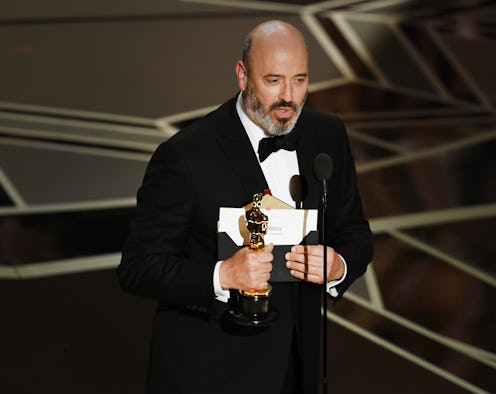
The Oscars Changed The Font Size On The Envelopes Because Of 2017 & Twitter Is Loving It
The 2017 Oscars will only be remembered for one thing — the Moonlight/La La Land envelope snafu, in which Faye Dunaway and Warren Beatty presented the right award to the wrong movie. Oops! To combat this humiliation, the Academy has taken a very big step toward change. They have put a huge font size on the 2018 Oscars envelopes. Of course, fans watching the show took notice.
For those of you who had already fallen asleep before the 2017 show reached its end, La La Land was named as the Best Picture when really it was Moonlight that had been written on the envelope. Dunaway and Beatty blamed the envelopes, saying that they were hard to read because they had accidentally read off the envelope for Best Actress instead. It was exhausting. In any case, it's 2018, and the Oscars have made some big changes — so big that you can probably see them from space. The Oscars envelopes now have the categories written on them in a very large, very bold font that takes up nearly the entire side of the envelope. This must be so that it cannot be possible for producers or presenters or anyone else within 1500 yards of the envelope to grab the incorrect one. One year you name the wrong movie, fine, but two? Two is just a shame.
Because you really can't miss these envelopes, Twitter took notice.
There Were Plenty Of Three Billboards Jokes
Topical humor, guys.
Viewers Saw Right Through The Reasoning
We see you, Oscars.
Others Knew It Was A Sign Of Their Own Eyesight Failing
Hey — everyone gets old at some point. You may as well embrace it.
At least the Oscars can joke about the mixup now. Last year, the auditors of PriceWaterhouseCoopers allegedly handed Dunaway and Beatty the wrong envelope, and that is damn near impossible this year. Jimmy Kimmel, who hosted the Oscars in 2017, said on Good Morning America, "The biggest safeguard there is that this company PricewaterhouseCoopers will literally have to go out of business if they do it a second time. So I think they'll have to be very, very careful."
Interestingly enough, the biggest mistaken reveal in modern awards show history wasn't in 2017 — it took place at the Academy Awards back in 1940. According to the Washington Post, the producers of the show used to issue winner's lists to the local press so that the journalists could get ahead on filing their stories about the awards and who won them. But in 1940, as the winners were scooping up trophies, no one was really acting surprised. Why? Because the Los Angeles Times ignored the 11:00 p.m. embargo imposed by the Academy, and they opted to announce the winners in their evening edition, ruining the whole show of having a ceremony. What's the point of watching the ceremony or even sitting there if the winners were already named?
From 1941 on, no information was given to the press, and the sealed envelope system was adopted as we know it today. As the Washington Post writes, the privacy "started with using envelopes in 1941, keeping each winner separate and sealed and away from any news editors with itchy typesetting fingers. The envelopes became thicker, so they weren’t translucent, and they were guarded and secreted away until mere minutes before the big night began." The envelope system was born out of necessity, and clearly, after the Moonlight/La La Land mixup, it just needs to be perfected a little bit more. This larger font size is a step in the right direction, and if this doesn't work, Twitter will be sure to have many more jokes at the expense of the Oscars.